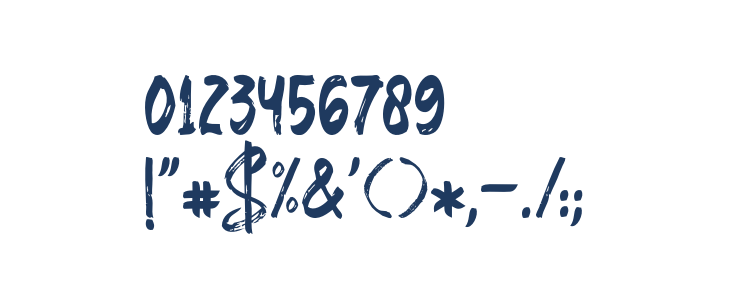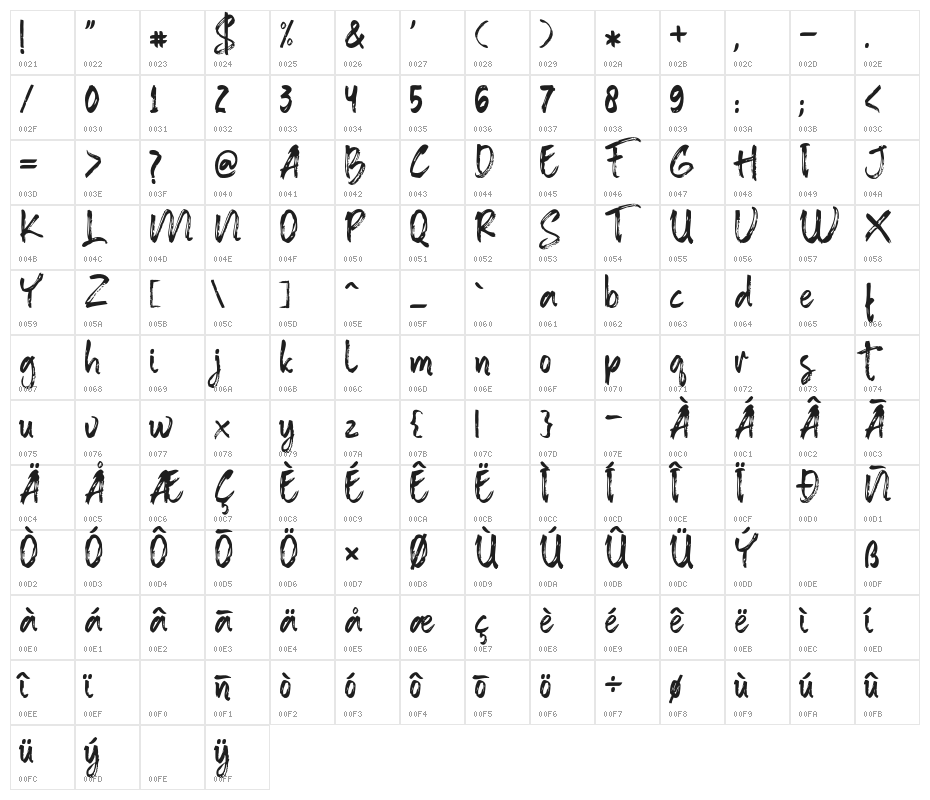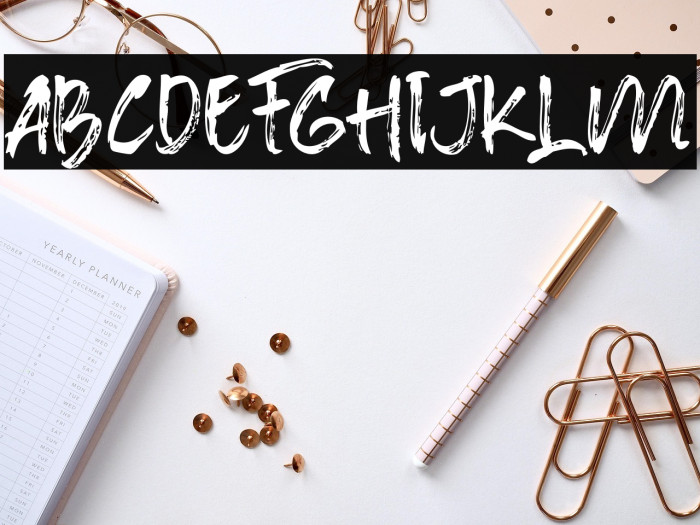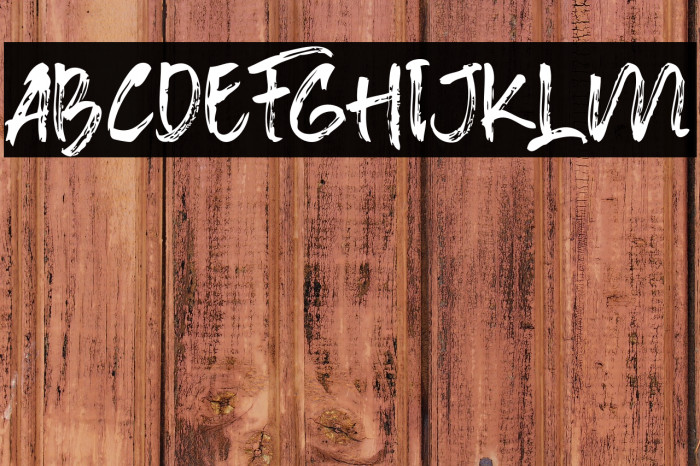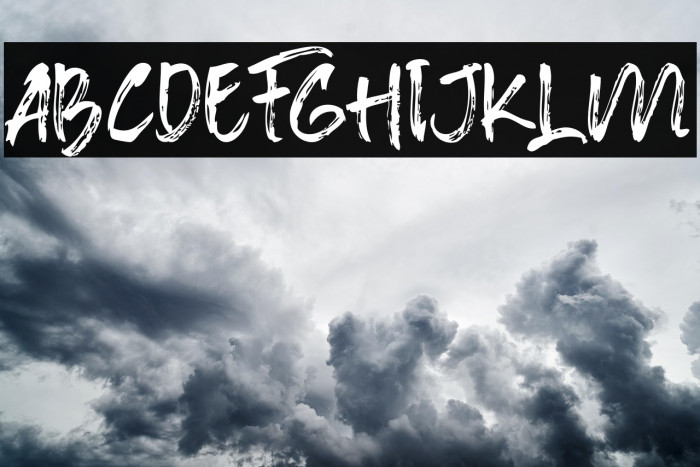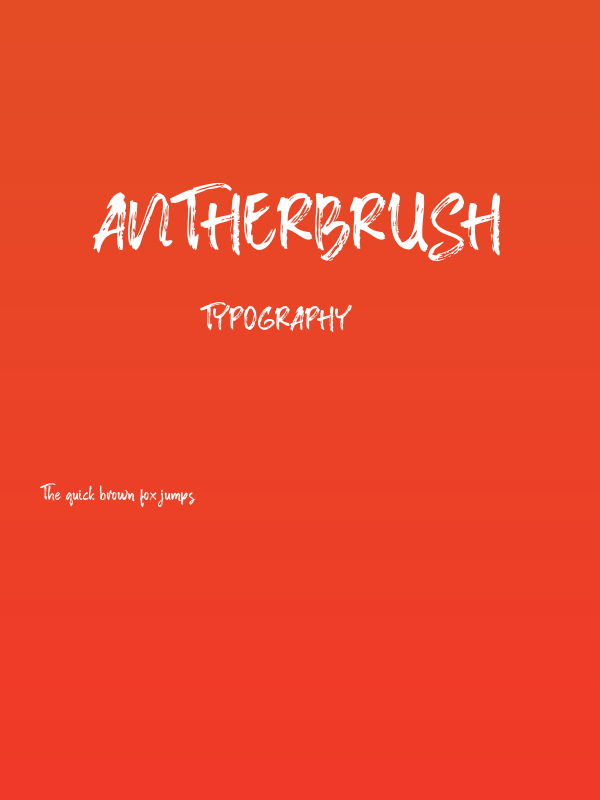
AntherBrush Font
AntherBrush Description
This font exudes a dynamic and energetic feel, characterized by its brush-like strokes that give it a hand-painted appearance. The letters are bold and expressive, with varying thicknesses that add a sense of movement and spontaneity. The uppercase letters are particularly striking, with dramatic flourishes and a slightly irregular baseline that enhances the artistic vibe. The lowercase letters maintain the same lively style, offering a cohesive look across the alphabet. Numbers and special characters are equally bold, ensuring consistency throughout. This font is perfect for projects that require a personal touch or a creative flair.
| Proposed Projects | Ideal for branding, posters, invitations, and any design needing a creative, artistic touch. |